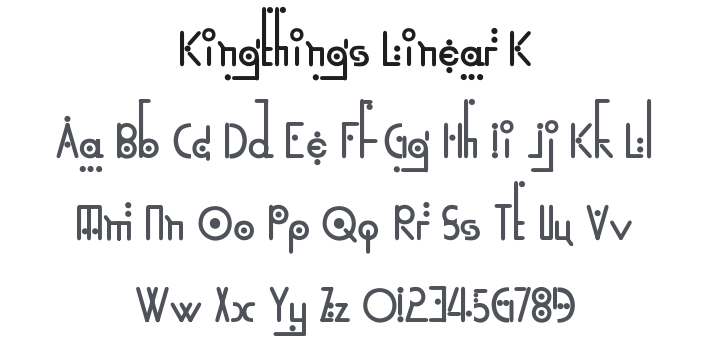
Kingthings Linear K Font
About Kingthings Linear K
I wanted to make a font with the simplest possible forms that I could use over and over again in font creator - like stick drawings - just lines, hence linear. I may come back to it - haven't really worked out where I want it to go - and it hasn't expressed a preference... Looks nasty though which is always a start!